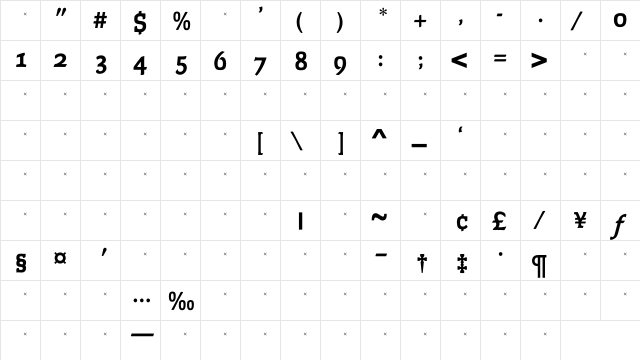
FaustBoldOldStyleFigsTab Regular Font Preview
FaustBoldOldStyleFigsTab Regular
Design Context for FaustBoldOldStyleFigsTab Typeface
FaustBoldOldStyleFigsTab carries the refined structure of traditional serif typography, with bracketed terminals and considered proportions that communicate credibility and craft. Its bold stroke weight gives it real presence on the page.